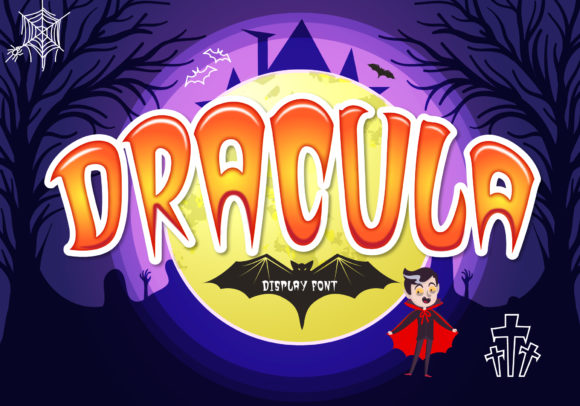
Unleash the Midnight Magic with Dracula Font - The Enchanting Display Typeface for Hauntingly Creative Designs!
Step into the realm of darkness and enchantment with Dracula Font, a captivating display typeface that oozes boldness and authenticity. Inspired by the chilling tales of vampires and the allure of the night, Dracula Font is not just a font; it's an artistic spell that casts a mesmerizing aura over your designs.
As a display font, Dracula Font commands attention with its strong, assertive strokes that demand to be seen. Its unique letterforms are meticulously crafted to exude an eerie elegance, reminiscent of ancient tombstones and moonlit graveyards. Each character carries a story, a whisper of mystery that adds depth and intrigue to your designs.
Unleash the Power of Darkness in Your Designs:
- Eerie Elegance: Dracula Font's haunting beauty lends an air of sophistication to your Halloween-themed projects, adding a touch of the macabre to your invitations, posters, and social media graphics.
- Enchanting Display: Its large, bold characters make a strong impact on billboards, banners, and website headers, ensuring your message cuts through the noise and captivates your audience.
- Hauntingly Creative: Let your imagination run wild as you craft logos, book covers, and album art that exudes an otherworldly charm, leaving a lasting impression on your clients and fans.
With Dracula Font, you possess the power to transform the ordinary into the extraordinary. Its dark and alluring aura will cast a spellbinding charm over your designs, making them stand out from the mundane and mundane.
Join the legion of creative visionaries who have embraced the allure of Dracula Font. Experience the magic yourself and witness the transformation it brings to your designs. Let the darkness inspire you, let Dracula Font be your muse, and create breathtaking designs that will leave your audience spellbound.